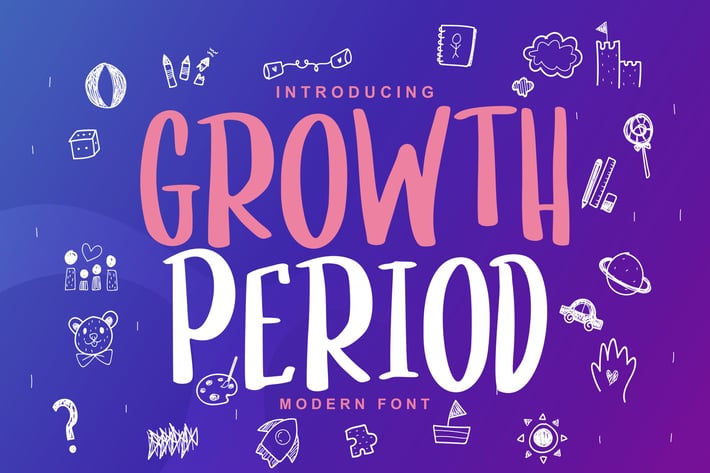
Growth Period | Kids Modern Font
Growth Period | Kids Modern Font with a sans style, So beautiful on invitation like greeting cards, branding materials, business cards, quotes, posters, and more!